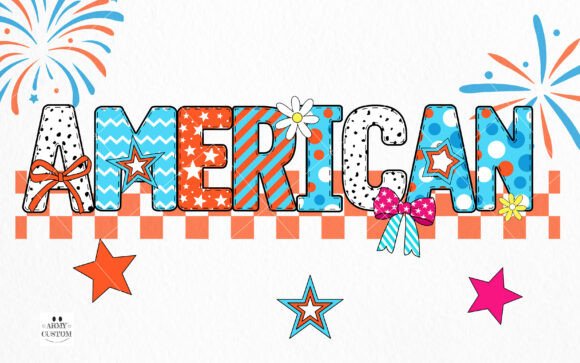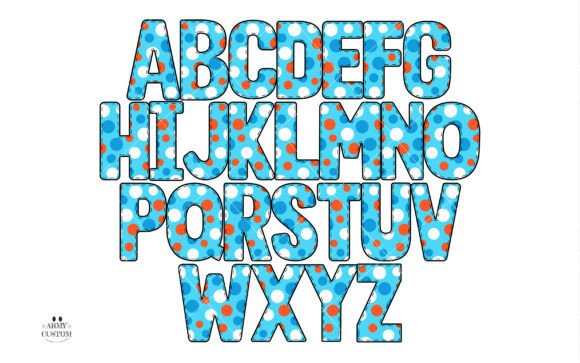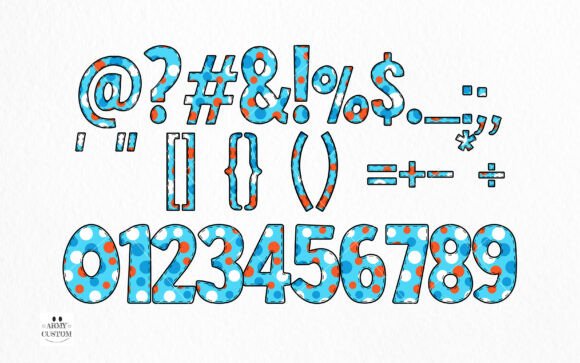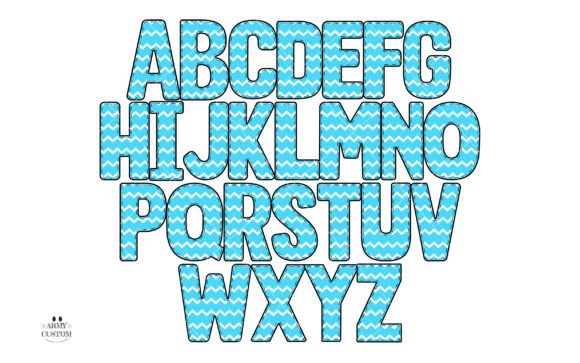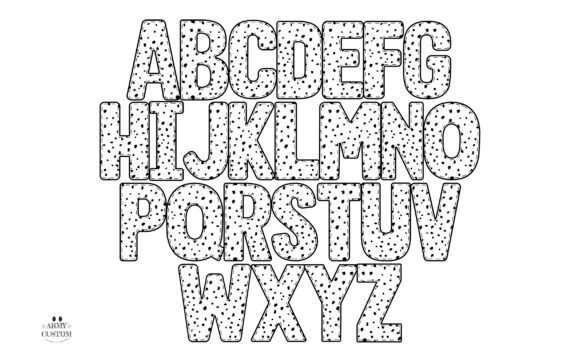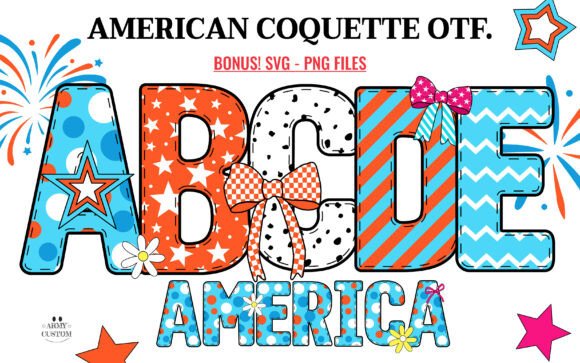
Introducing the American Coquette Font: A Patriotic Celebration in Typography
As the United States prepares to commemorate Memorial Day, designers and crafters are on the lookout for creative elements that capture the essence of American patriotism. If you’re searching for a font that embodies the spirit of the Land of the Free, look no further than the American Coquette Font. This stunning typeface is a tribute to the heart of America, meticulously crafted to infuse your projects with a sense of national pride and nostalgia.
The Inspiration Behind American Coquette Font
The American Coquette Font is more than just a collection of letters; it’s a reflection of American aesthetics and the country’s rich history. Inspired by the grandeur of American landmarks, the courage of its people, and the timeless symbols of freedom, this font is designed to evoke a sense of nostalgia and patriotism. Every curve, every line, and every detail has been carefully considered to bring you a typographic experience that’s distinctly American.
Uniquely Designed for Creative Projects
What sets the American Coquette Font apart is its unique design, tailored to add a touch of American charm to your creative projects. Whether you’re working on a Memorial Day tribute, a Fourth of July celebration, or simply want to incorporate a sense of patriotism into your branding or craft, this font is the perfect choice. Its versatility ensures that it can be used across various mediums, from digital platforms to print materials, making it an invaluable addition to your design toolkit.
Key Features of the American Coquette Font
- Patriotic Appeal: The font’s design is deeply rooted in American symbolism, making it perfect for projects that require a patriotic touch.
- Versatility: Suitable for a wide range of projects, from festive posters and flyers to website headers and social media graphics.
- Easy to Read: Despite its unique and decorative style, the font maintains a high level of readability, ensuring your message is conveyed clearly.
- Customizable: The American Coquette Font comes with various weights and styles, allowing you to tailor it to your project’s specific needs.
How to Use the American Coquette Font in Your Projects
Incorporating the American Coquette Font into your designs is straightforward. Here are a few ideas to get you started:
- Memorial Day and Fourth of July Greetings: Create heartfelt tributes and celebratory announcements that capture the spirit of these important American holidays.
- Branding and Packaging: Add a patriotic flair to your brand’s packaging and marketing materials, perfect for businesses looking to emphasize their American roots.
- DIY Crafts: From scrapbooking and card-making to custom signs and banners, this font can elevate your DIY projects with a professional and thematic touch.
- Web and Social Media Graphics: Stand out on digital platforms with eye-catching headers, banners, and posts that showcase your patriotic spirit.
The American Coquette Font is a powerful tool for designers and crafters looking to infuse their projects with a sense of American patriotism. Its unique design, inspired by the heart and soul of the United States, makes it an exceptional choice for any project aiming to celebrate American heritage. Whether you’re commemorating a significant holiday or simply want to add a touch of national pride to your work, this font is sure to exceed your expectations. Immerse yourself in the spirit of patriotic celebrations and let the American Coquette Font bring your creative visions to life.